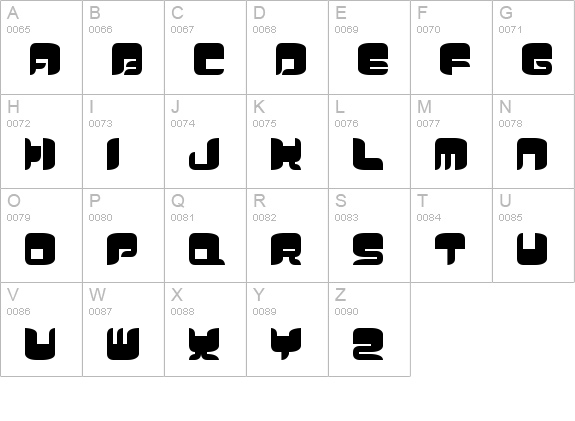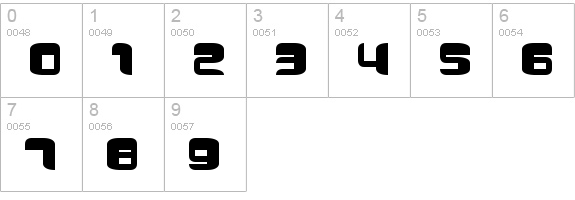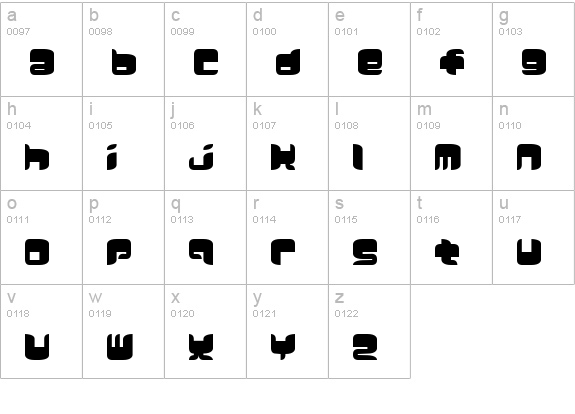
Comicker Font Details
Introducing Comicker font, a versatile and modern typeface that is perfect for adding a touch of sophistication to your design projects. This elegant font features clean lines and a contemporary style, making it ideal for a wide range of applications including logos, branding, posters, and more. Comicker font is not only visually appealing but also highly legible, making it a practical choice for both print and digital designs. Whether you're creating a sleek and professional look or a bold and eye-catching design, this font has got you covered. The best part? Comicker font is available for free download at FontsMarket.com. So go ahead and elevate your designs with this stylish and versatile typeface today!